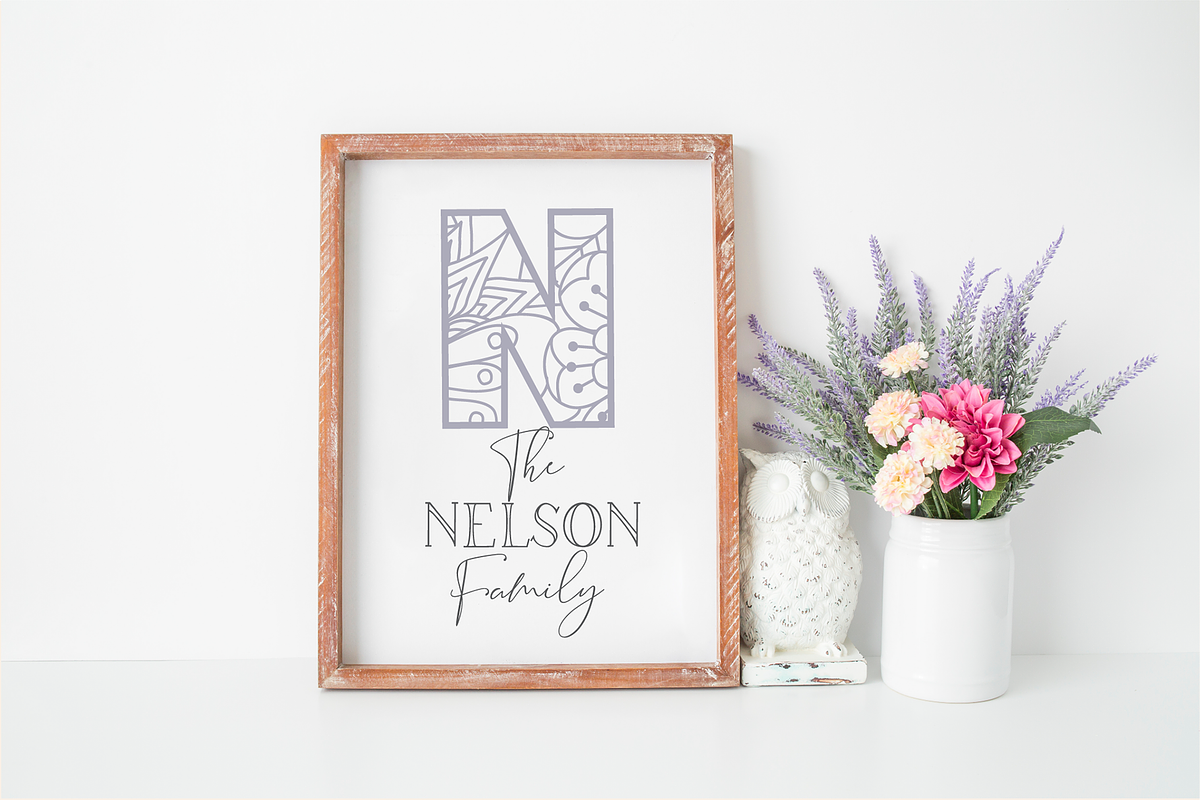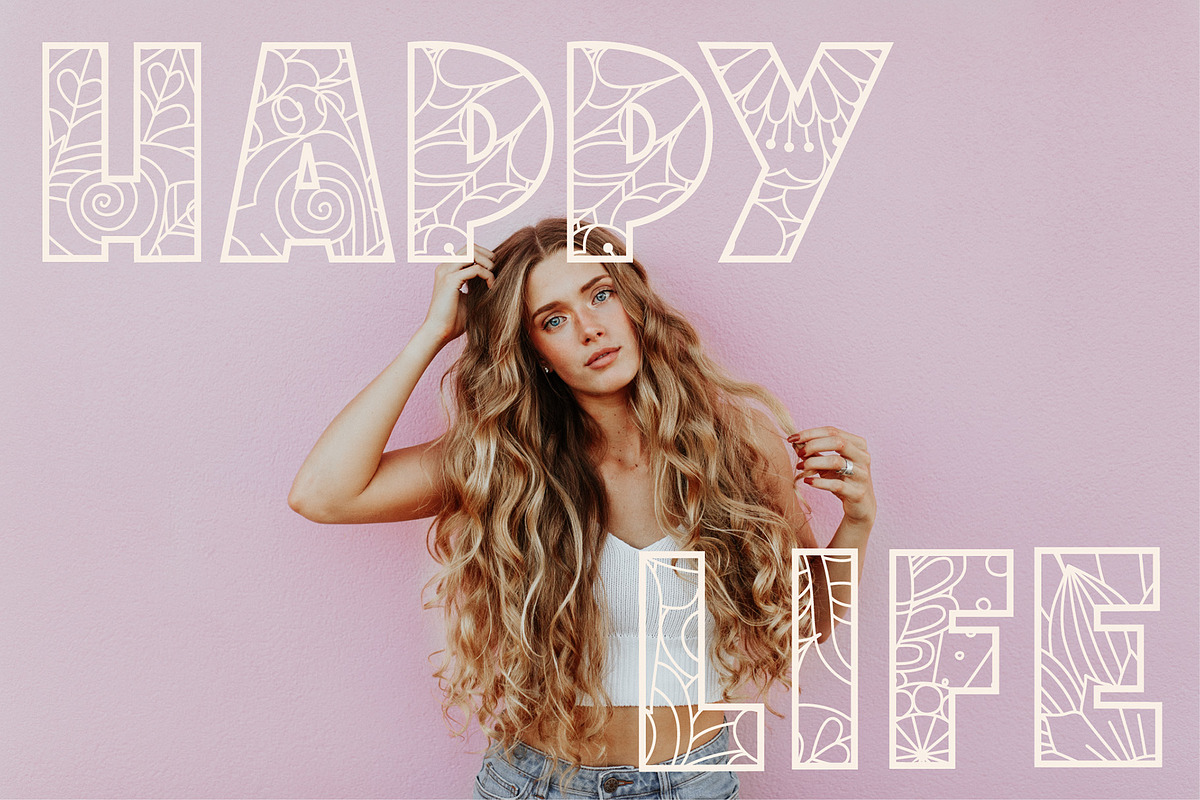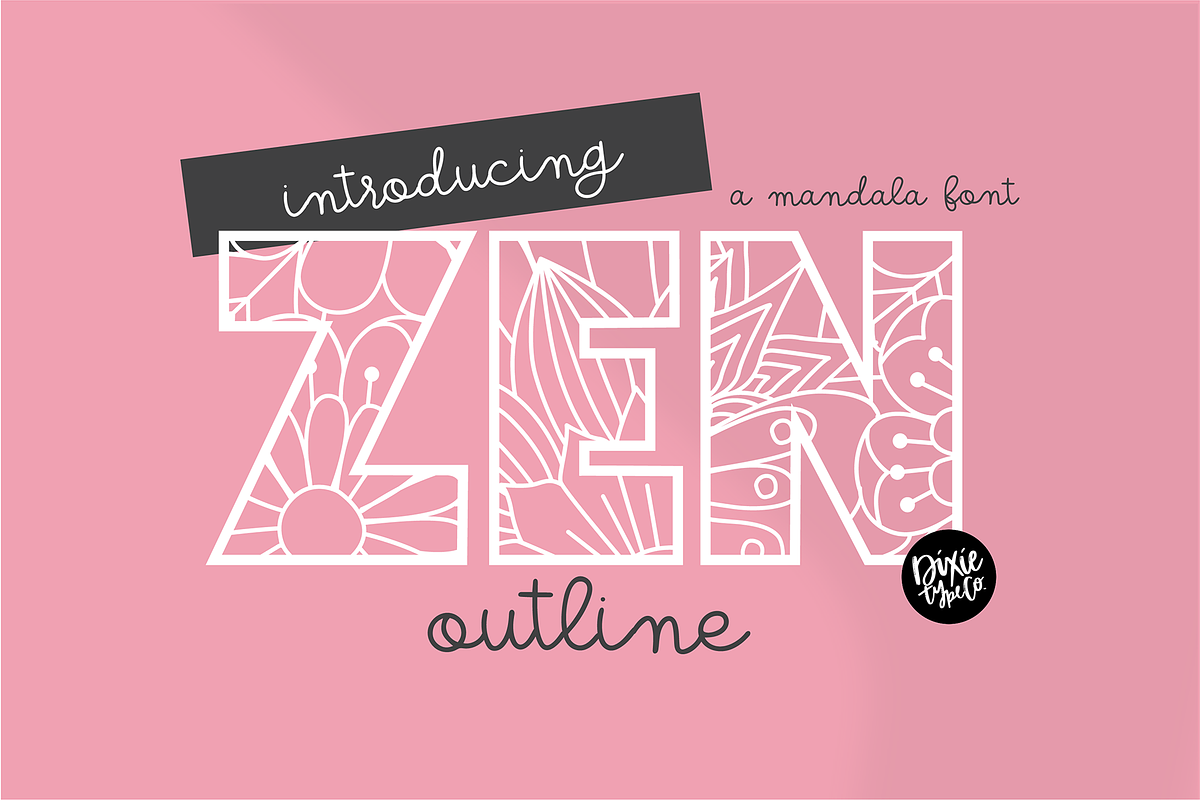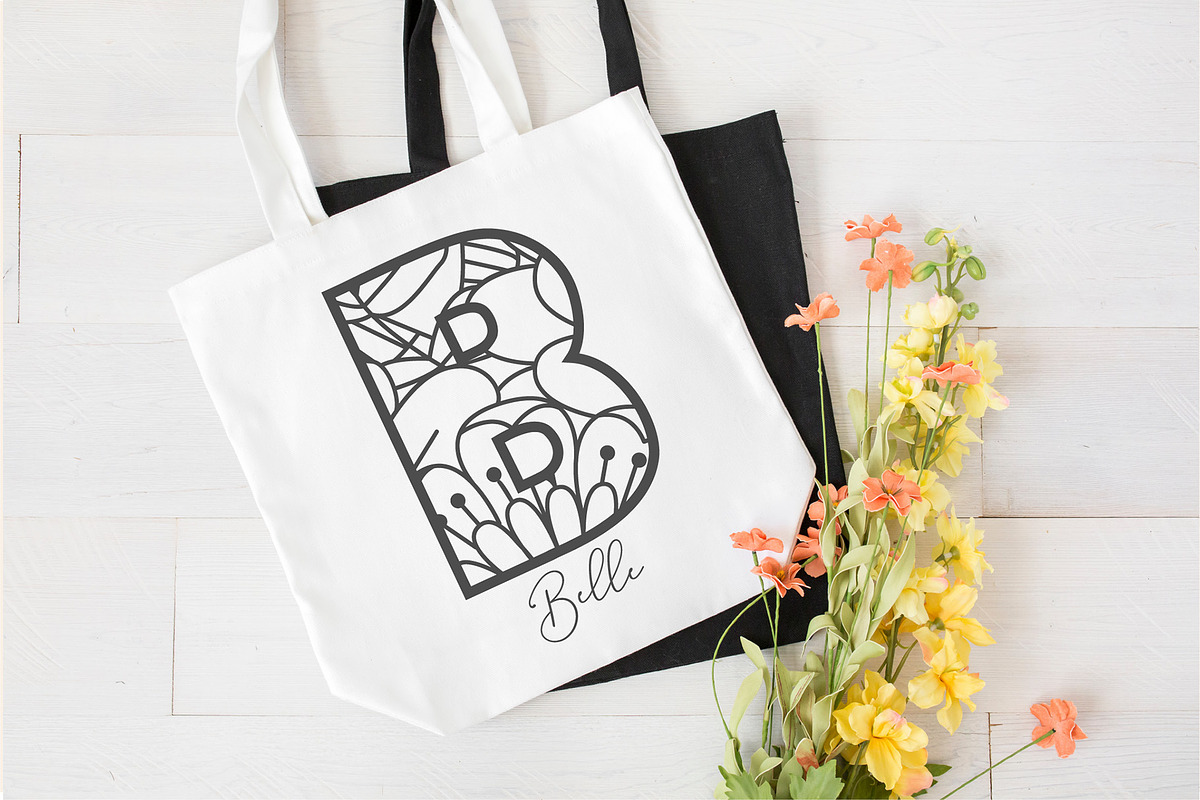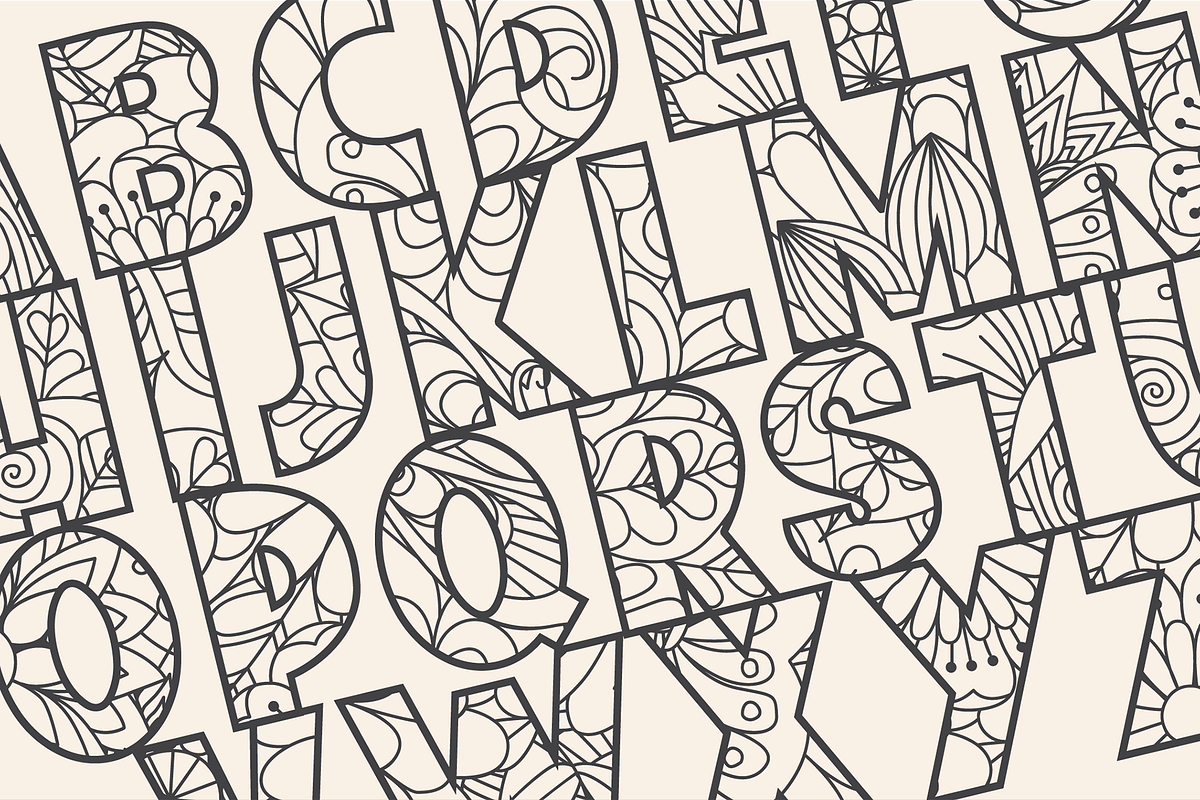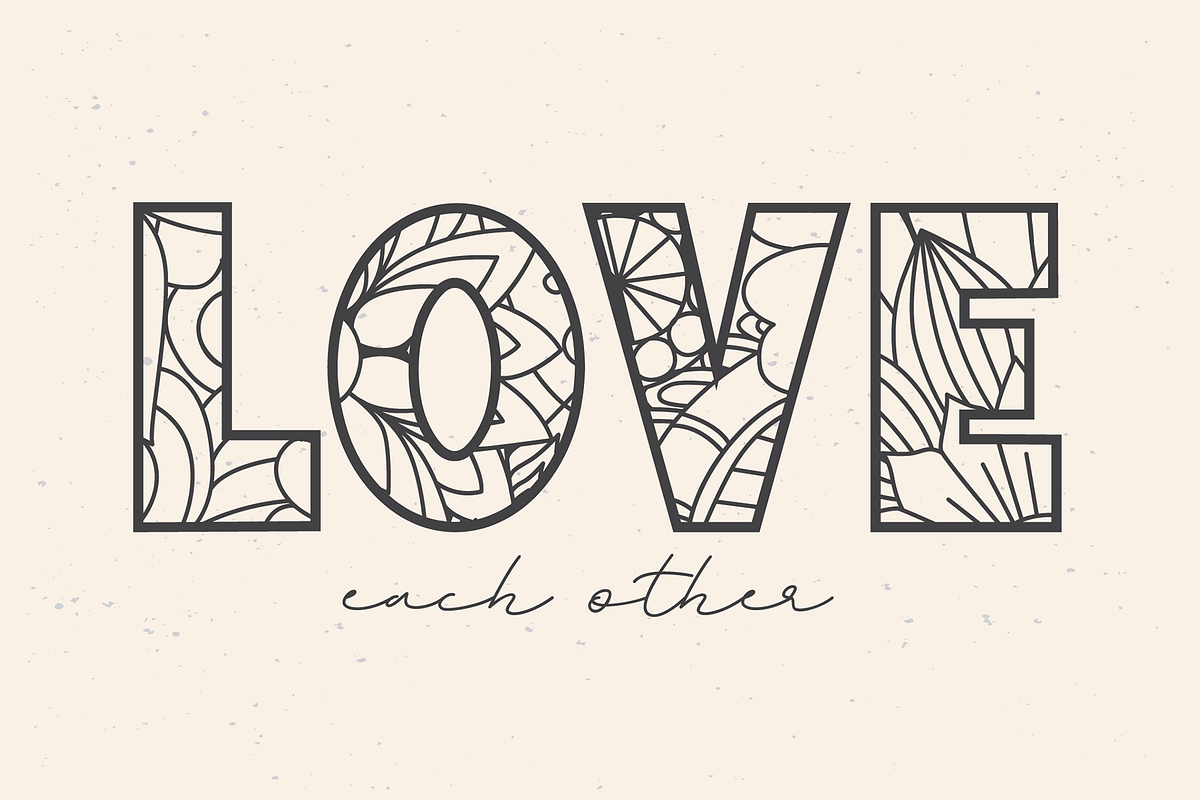
ZEN OUTLINE a Mandala Font
"Zen Outline" a mandala font. { A typographic font hand lettered with love by Dixie Type Co. }
"Zen Outline" is a mandala/zentangle font. This works great in monogram projects or as display text. Use it for party invitations, craft projects, advertisements, IG posts, logos, etc.!
This font includes letters A-Z. The same characters are used for both upper and lowercase.